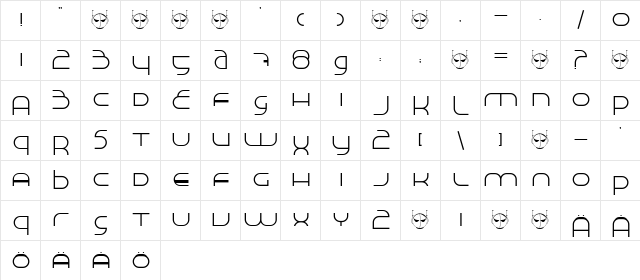
Made in Space Regular
Design Context for Made in Space Typeface
Made in Space takes a measured approach to typography — its balanced proportions and neutral character make it a reliable workhorse for both digital and print work.